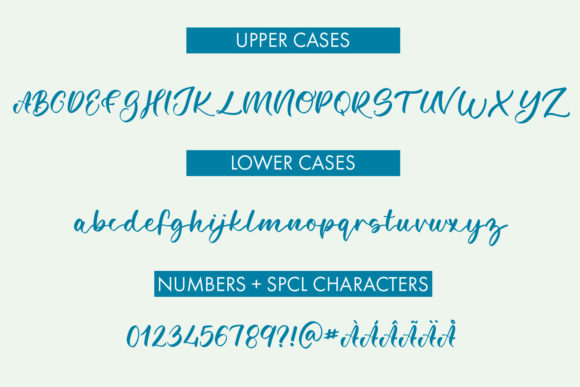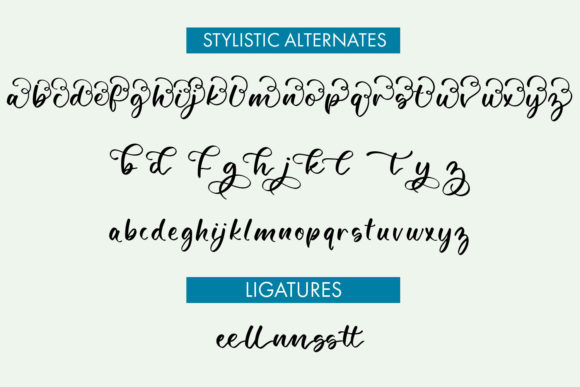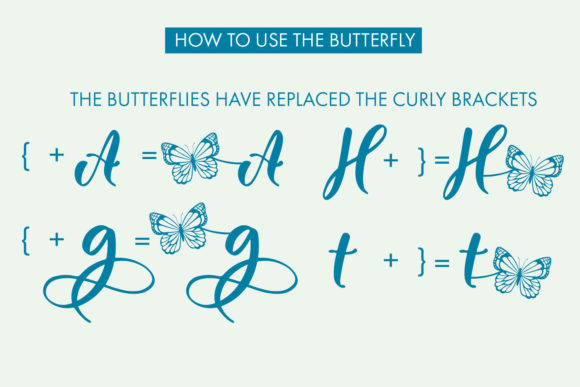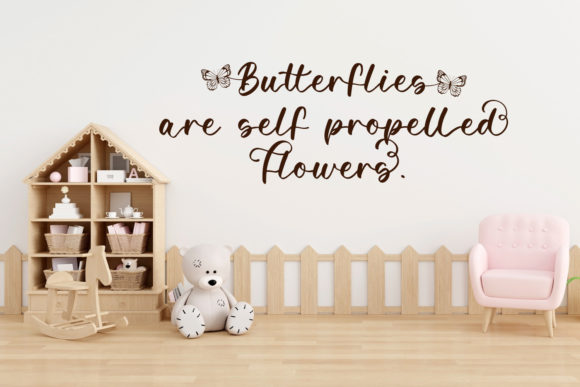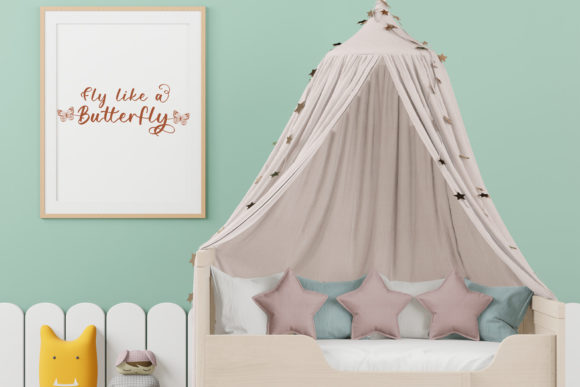
Scotch Argus Font
About Scotch Argus Font
“Scotch Argus” is introduced as a beautiful handwritten script font crafted specifically for enthusiasts of butterflies. With a focus on catering to DIY projects, this font aims to provide a versatile and charming option for creative endeavors.
The name “Scotch Argus” suggests a connection to nature, possibly drawing inspiration from the butterfly species Argynnis aglaja, commonly known as the Scotch Argus. This association with butterflies may imply a design that is graceful, intricate, and captivating, much like the delicate patterns found on butterfly wings.
Being described as a “handwritten script font,” it likely features cursive and fluid letterforms that emulate the natural flow of handwriting. Handwritten scripts often bring a personal and human touch to design, making them suitable for a variety of projects where a warm and inviting aesthetic is desired.
The mention of PUA encoding indicates that “Scotch Argus” includes additional glyphs and swashes. This feature allows users easy access to a variety of design elements, providing flexibility and creative freedom in incorporating unique characters and flourishes into their projects.
In summary, “Scotch Argus” is positioned as a charming handwritten script font with a thematic connection to butterflies. Its versatility and PUA encoding make it a suitable choice for diverse DIY projects, allowing users to infuse their creations with a touch of natural elegance and personal flair.